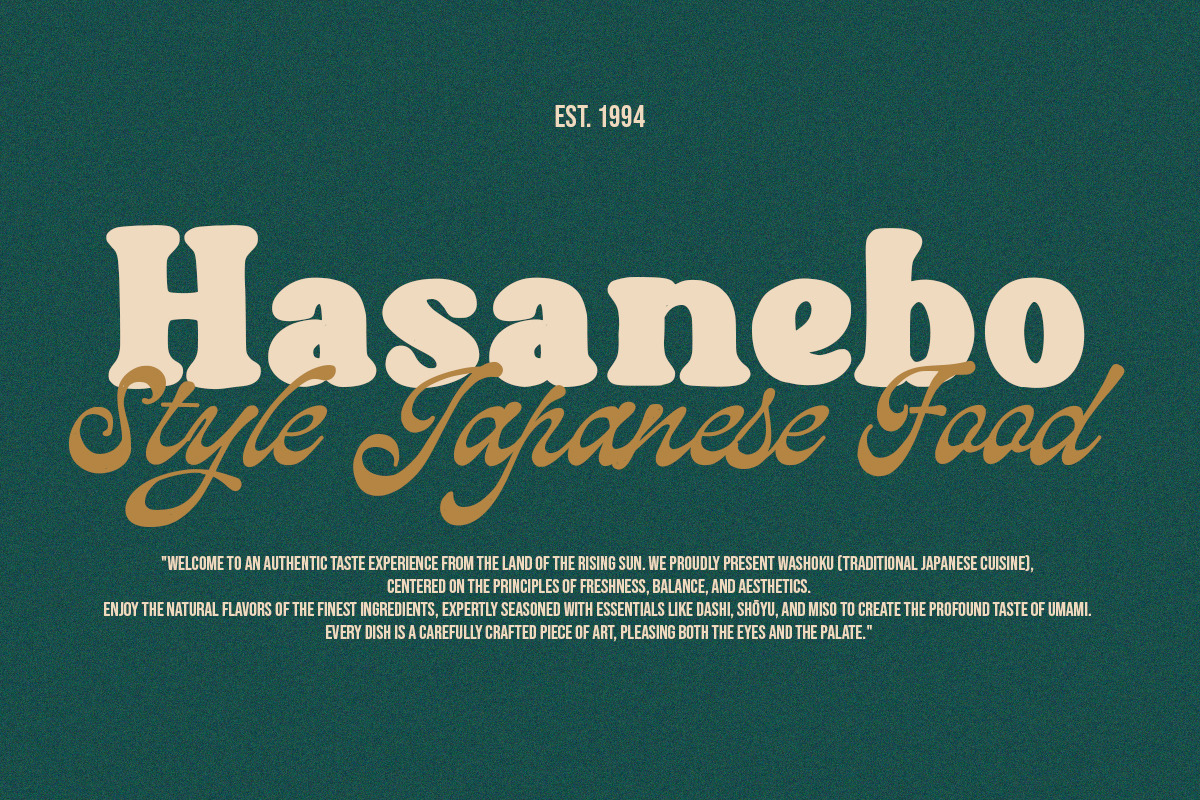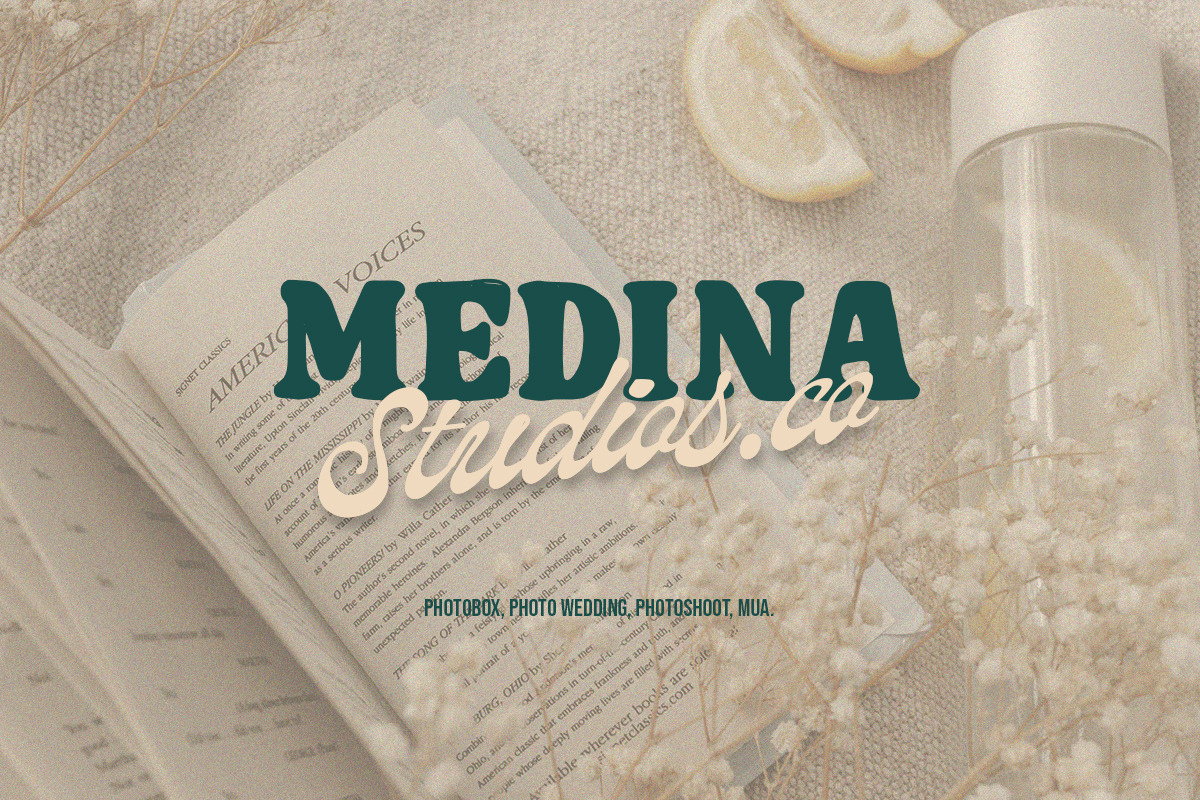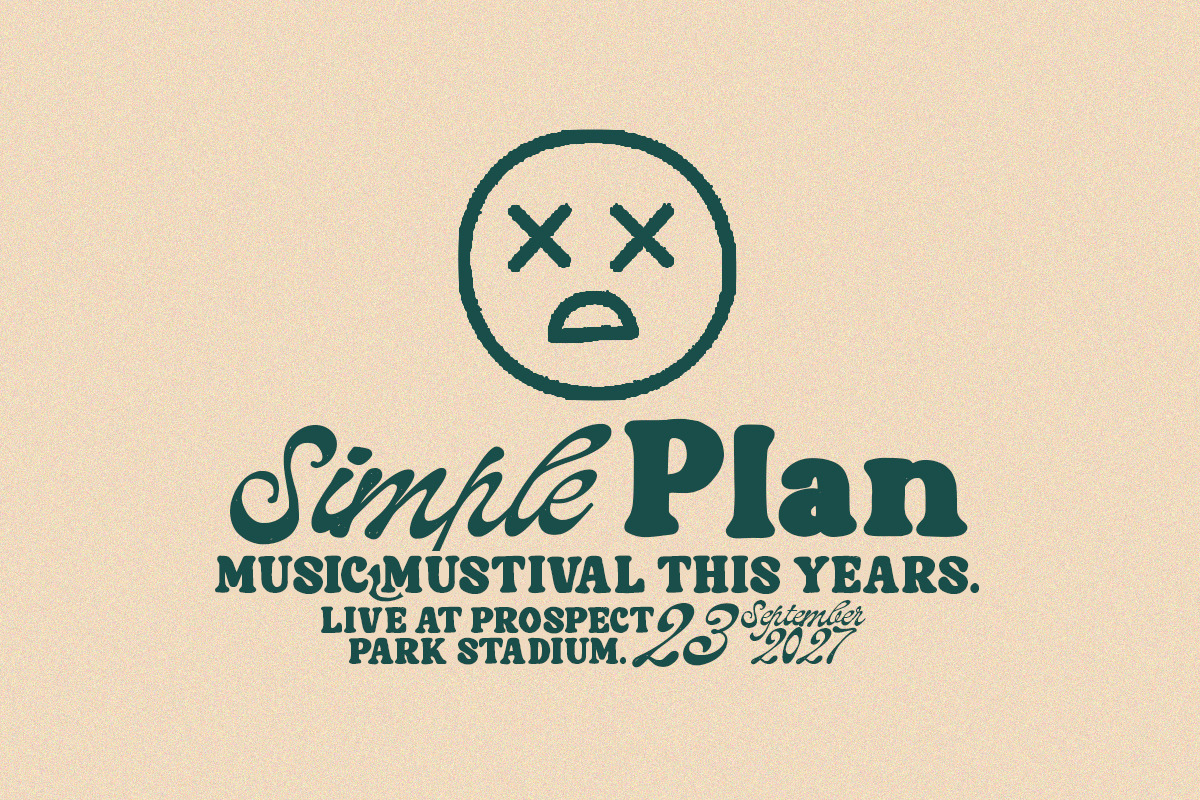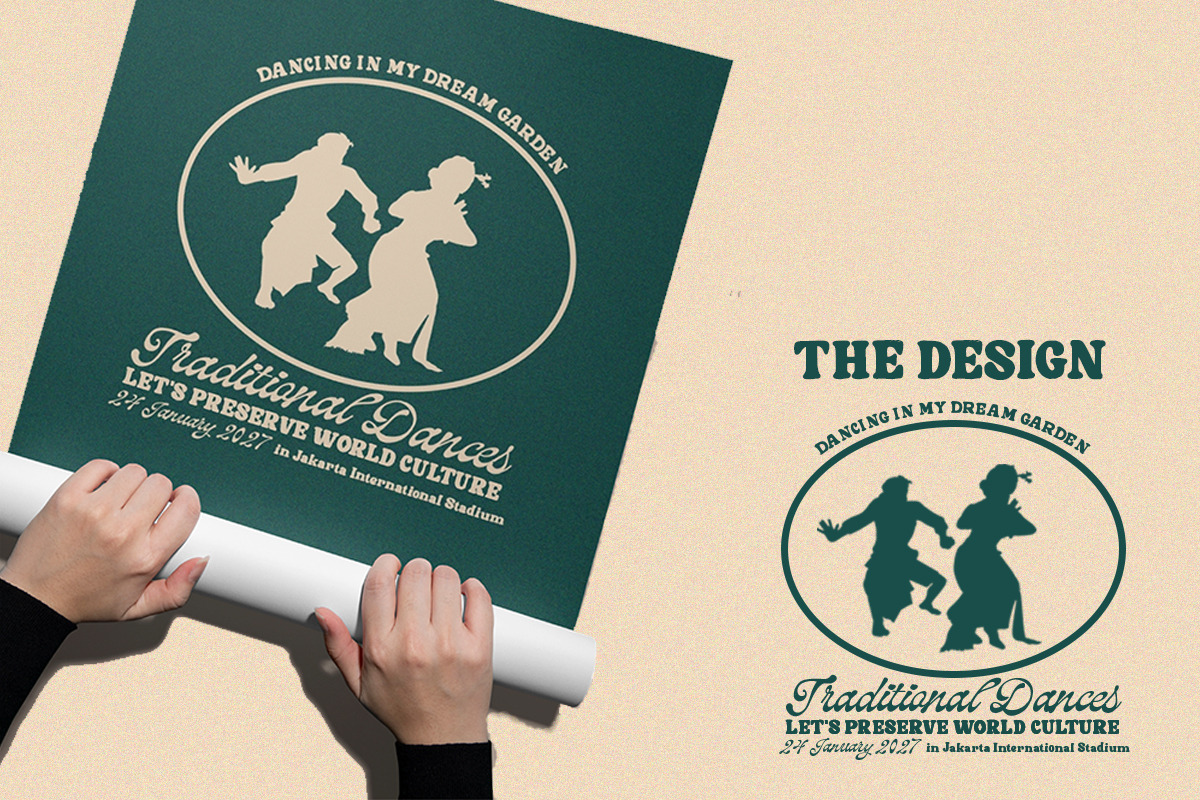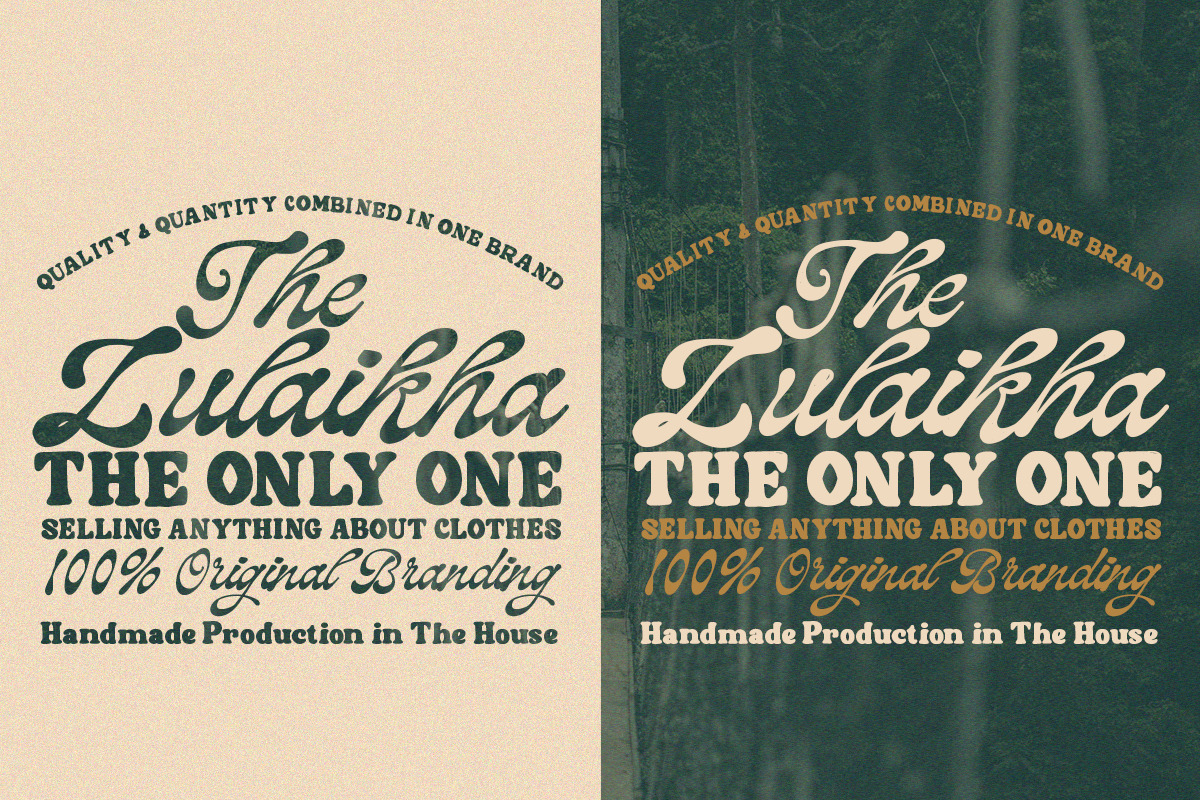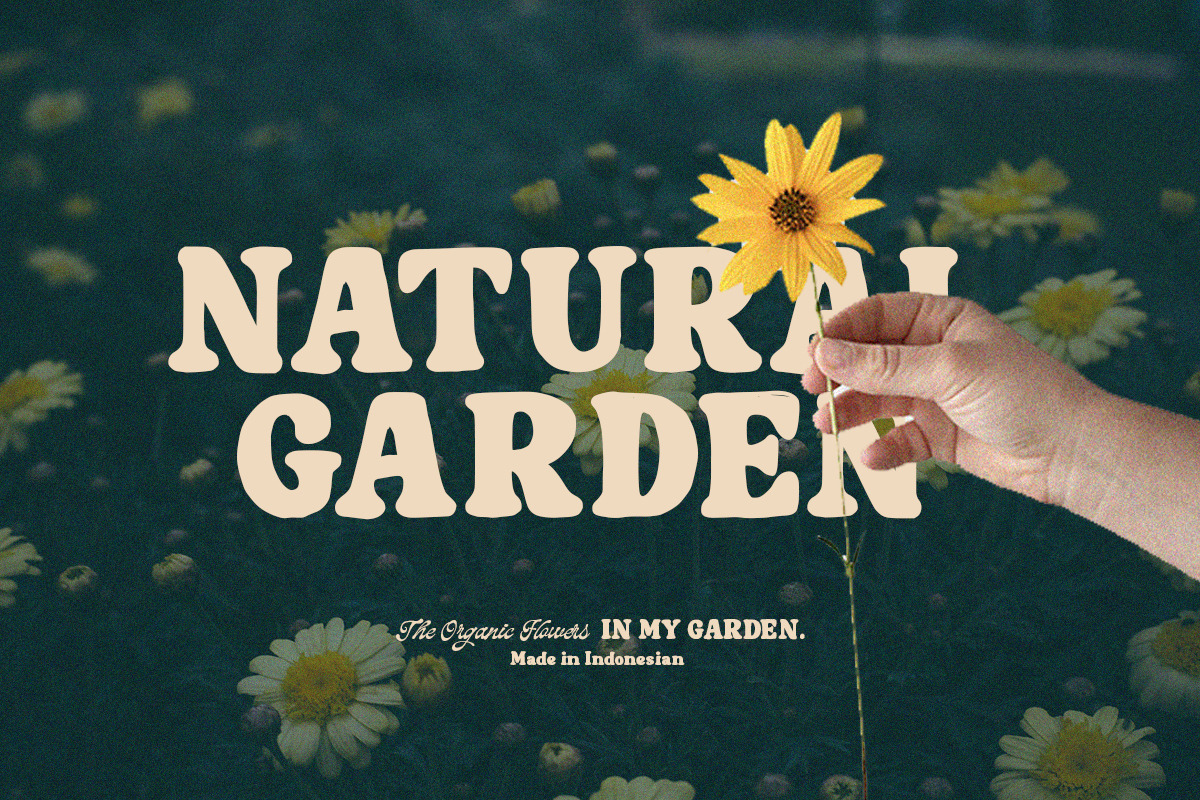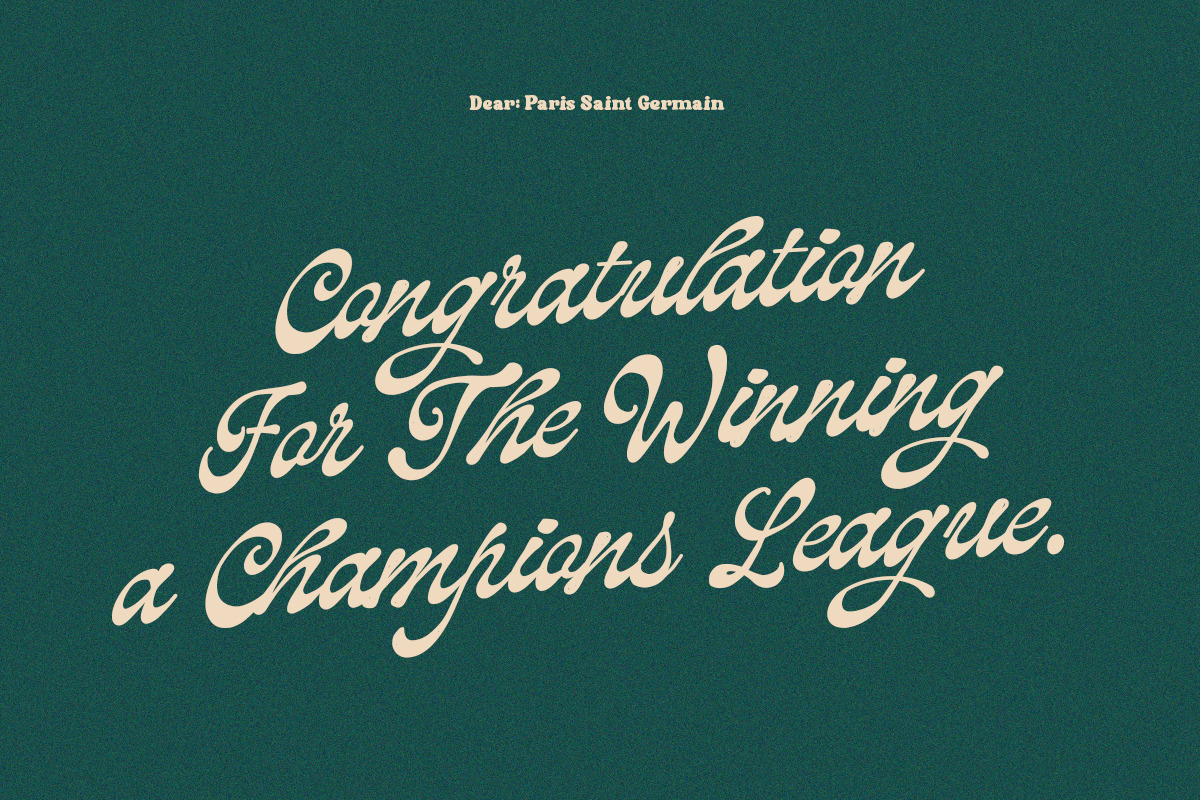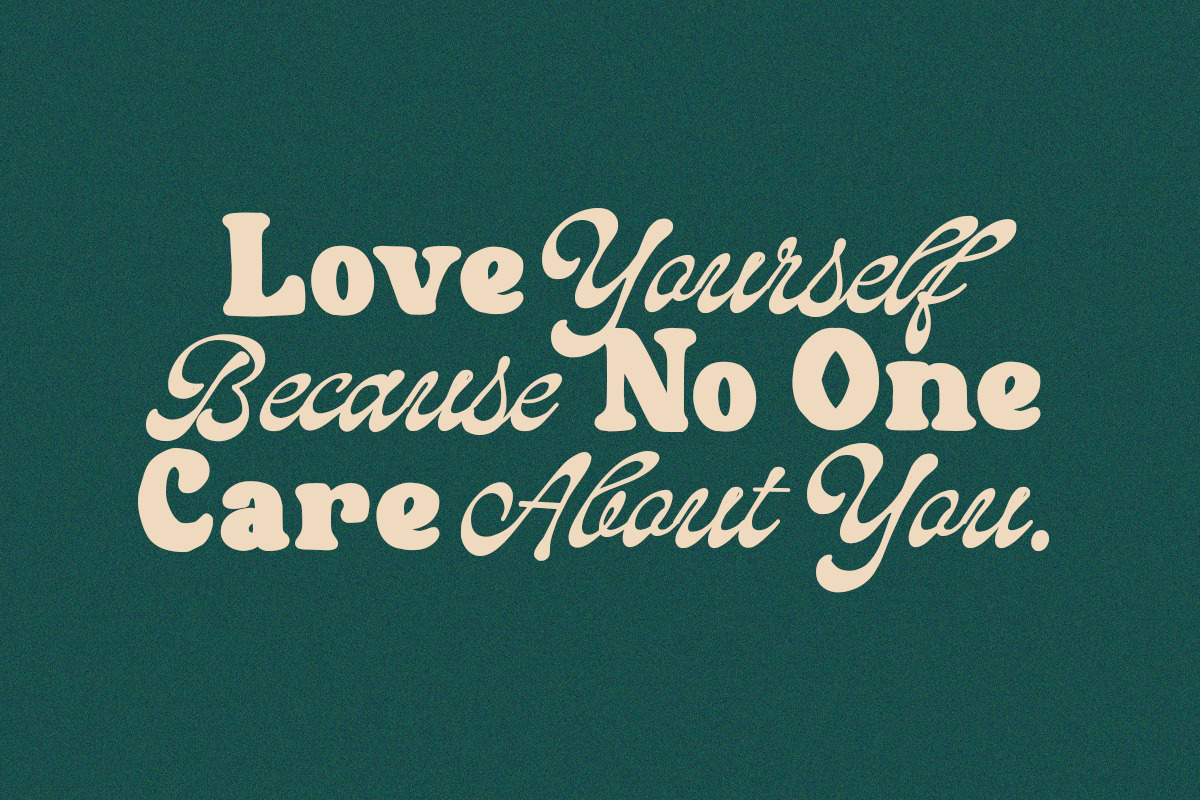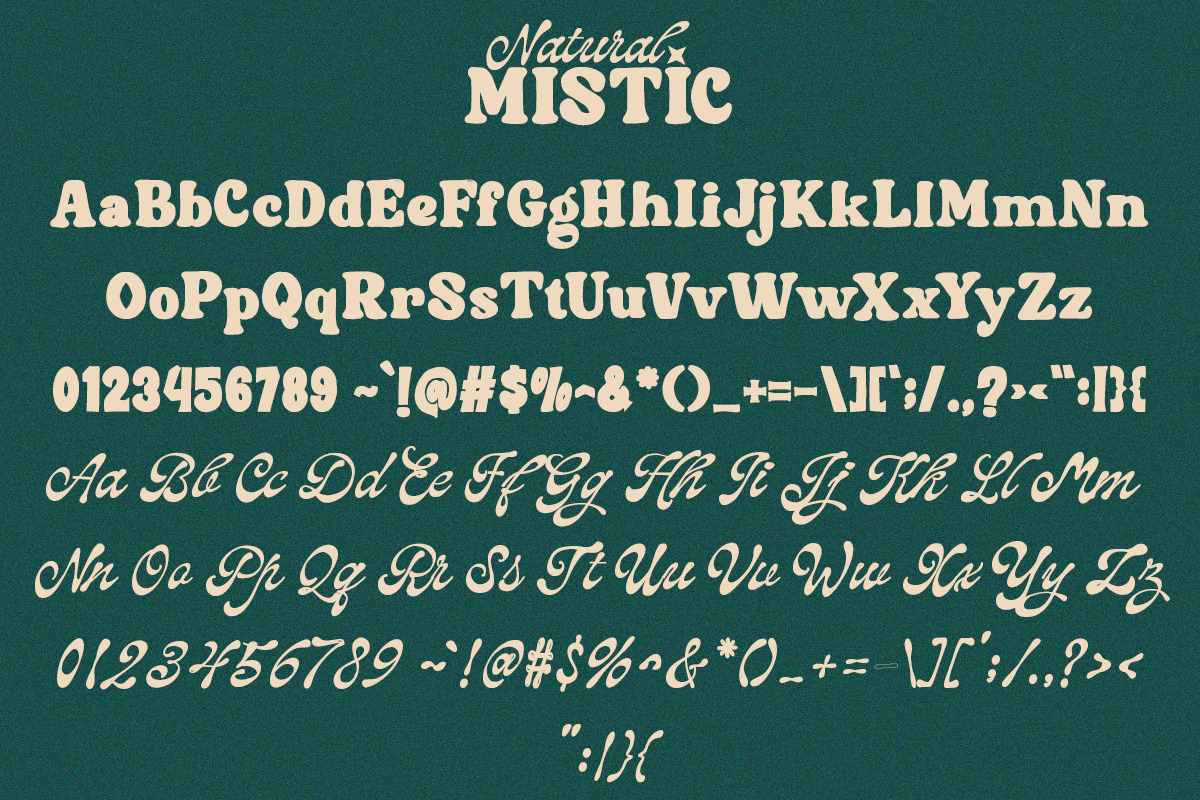
Natural Mistic
Natural Mistic is a Handlettered Font Duo that offers a strong, versatile vintage and authentic feel. Natural Mistic (Display): A bold, groovy, bubble-style typeface with soft, rounded edges. It has a 1970s retro vibe, is playfully eye-catching, and features unique decorative flair (like a star accent). Original Handwriting (Subtext): An elegant, flowing cursive script that contrasts the display font, adding a personal, handcrafted, and authentic touch. Ideal for: Branding/Logos, Posters, Packaging, and Merchandise that need a striking, retro, or artisan aesthetic.